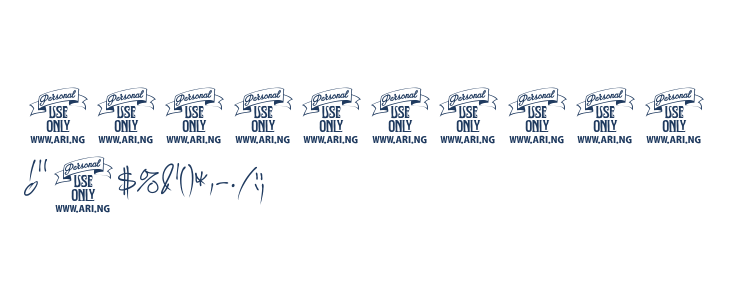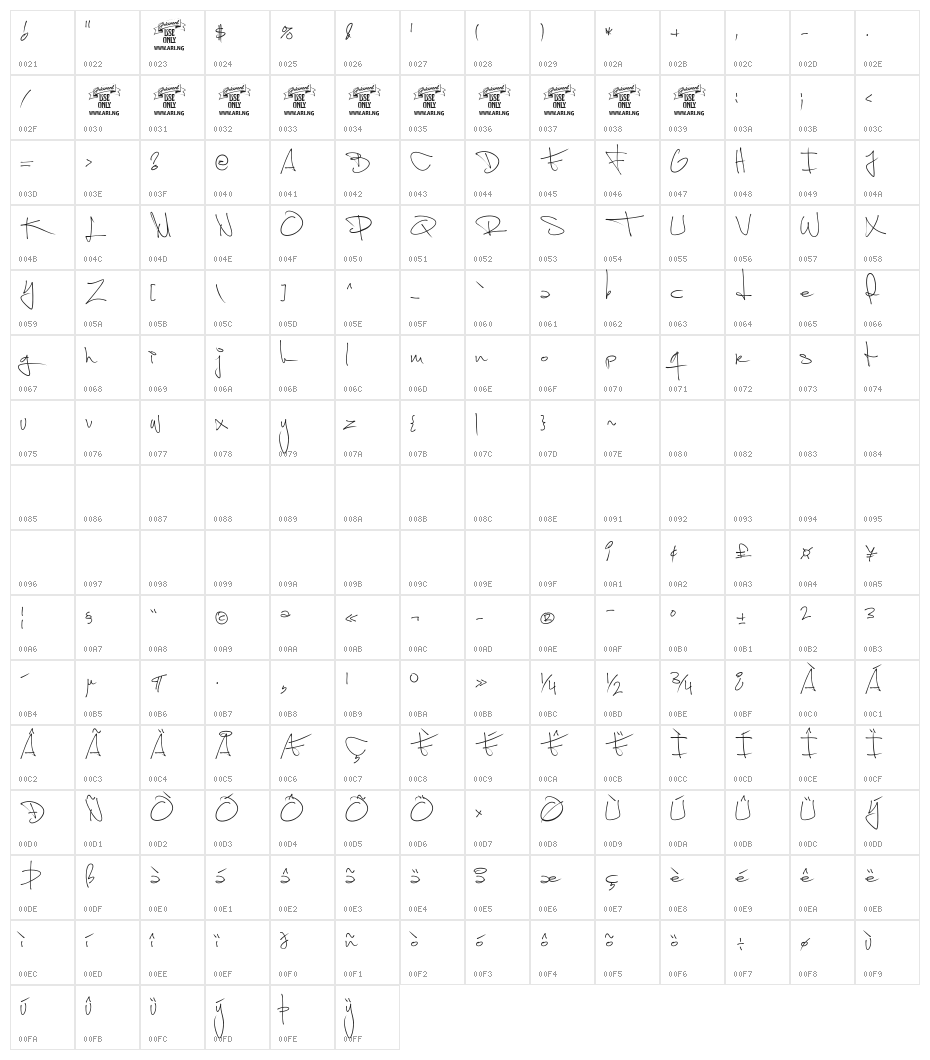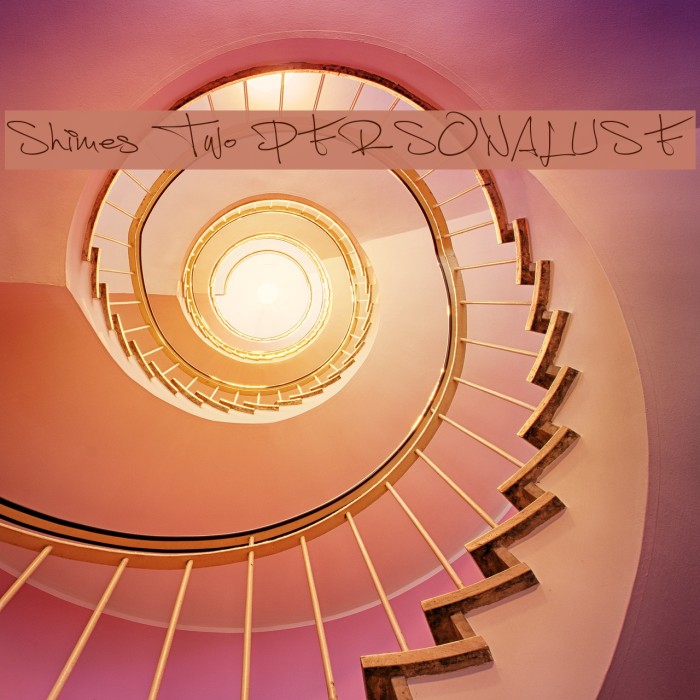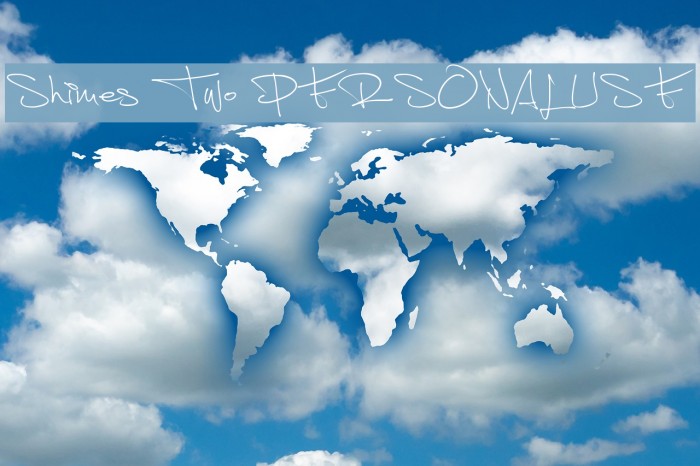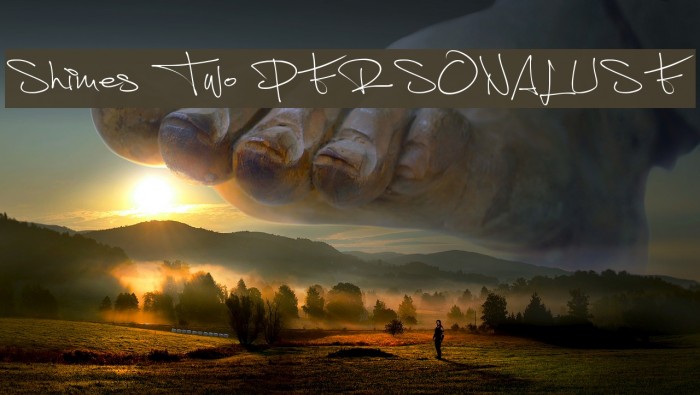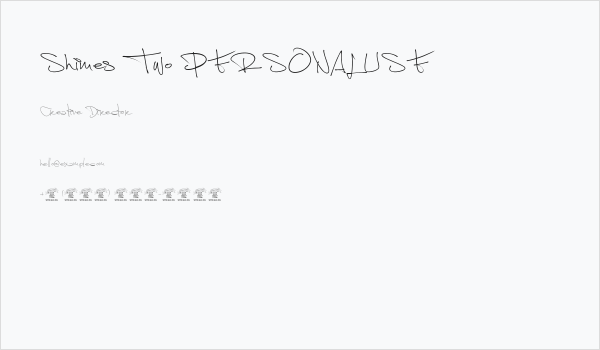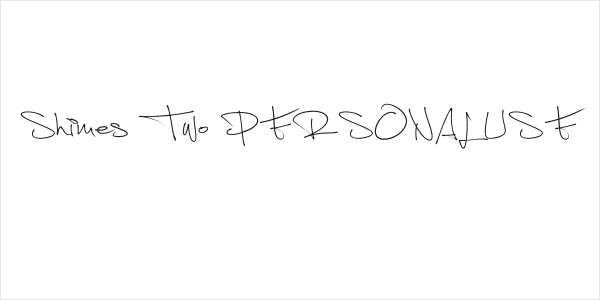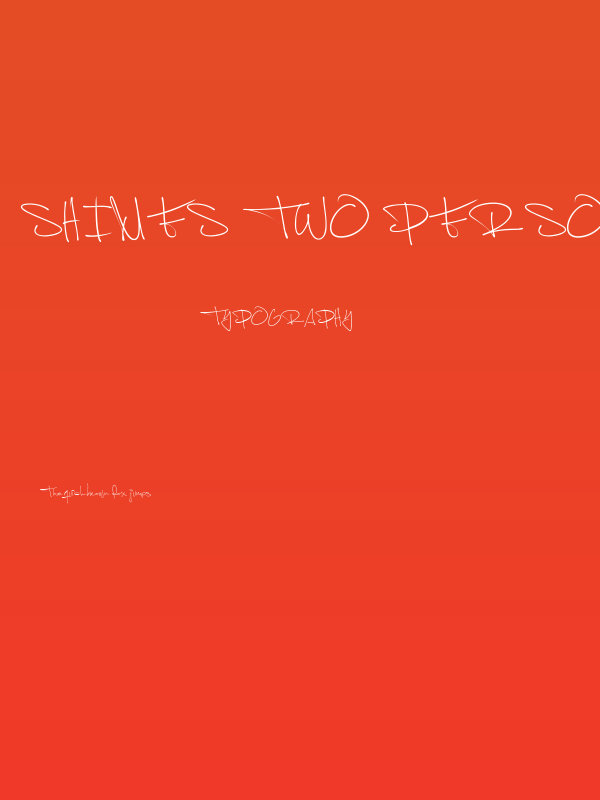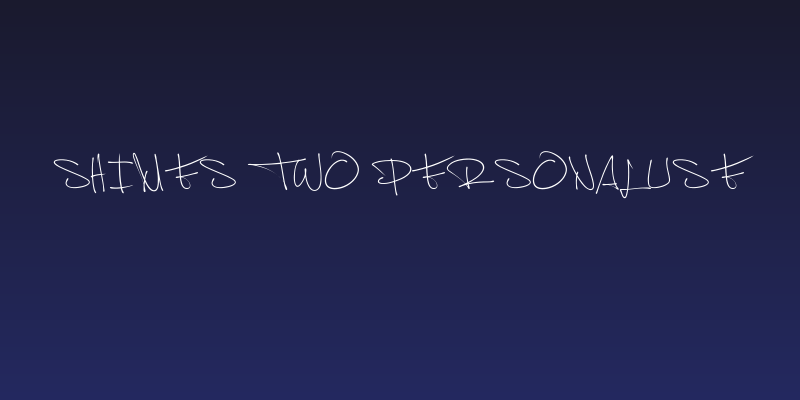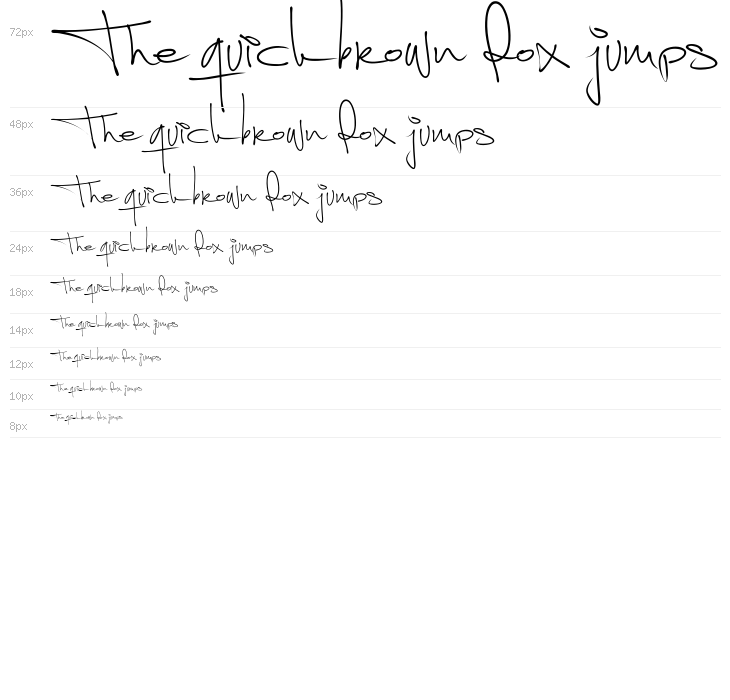
Shimes Two PERSONAL USE Font
Shimes Two PERSONAL USE Description
This font features a dynamic and expressive handwritten style, characterized by its fluid and irregular strokes. The letters are connected in a way that mimics natural handwriting, with varying heights and angles that add a sense of movement and personality. The uppercase and lowercase letters maintain a consistent style, with some letters featuring unique flourishes and loops. The numbers and special characters are crafted with the same attention to detail, ensuring a cohesive look across all elements. This font is ideal for projects that require a personal and artistic touch.
| Proposed Projects | Ideal for personal branding, creative invitations, artistic posters, and expressive social media graphics. |